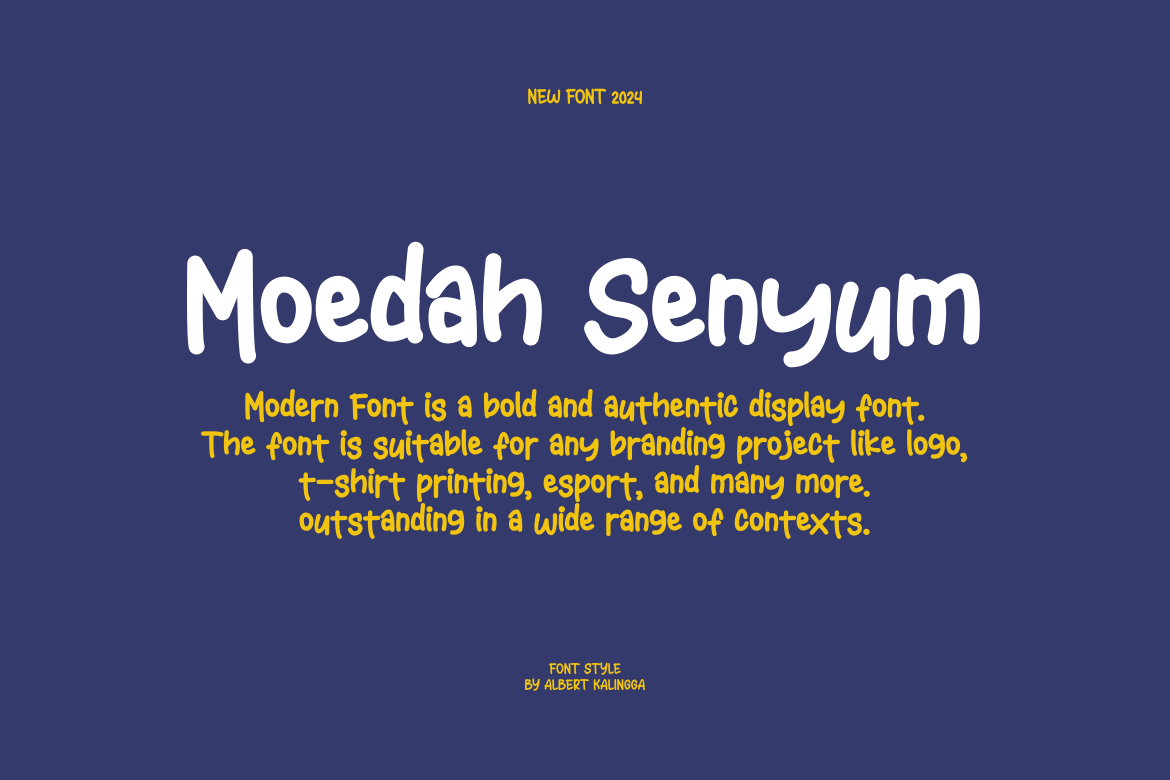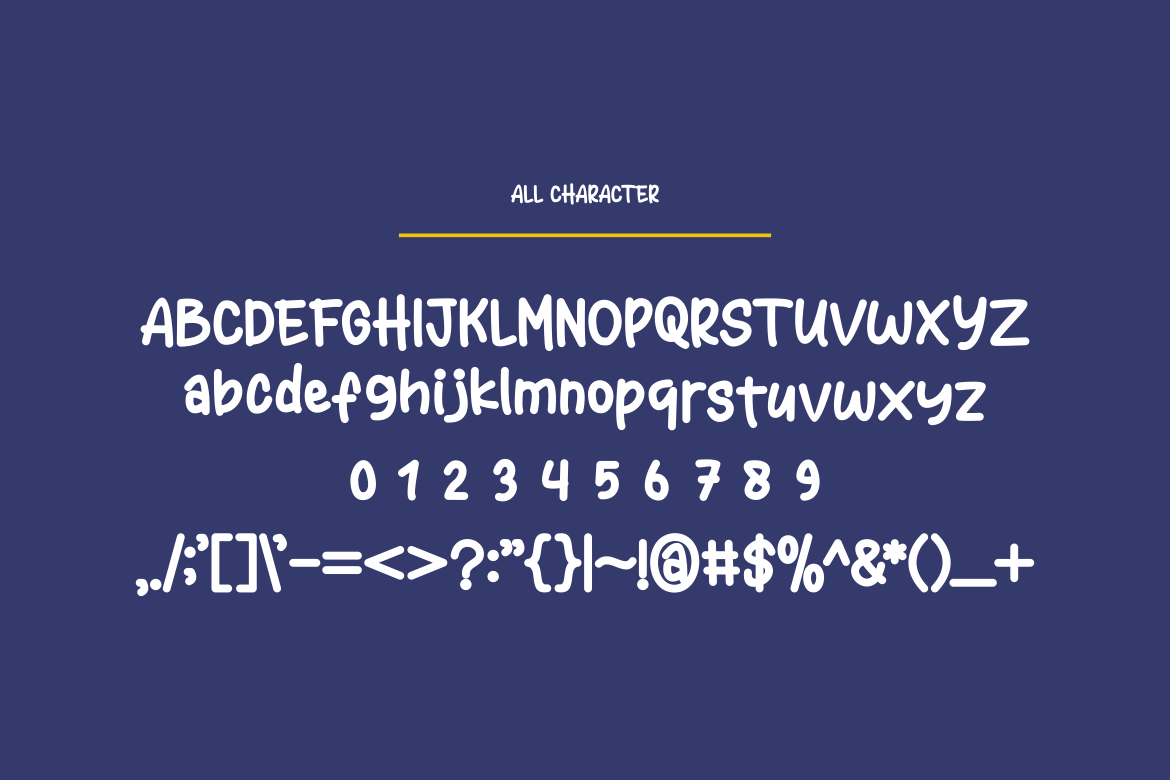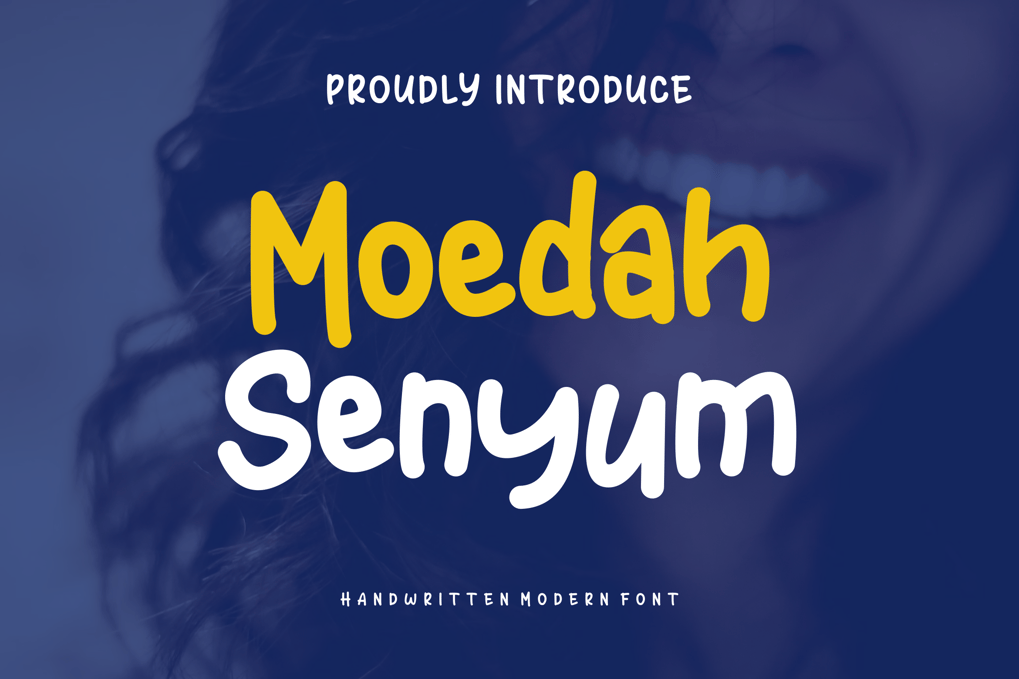
Moedah Senyum Font
Moedah Senyum Font – Modern Font is a bold and authentic display font. The font is suitable for any branding project like logo, esport, and many more. outstanding in a wide range of contexts.